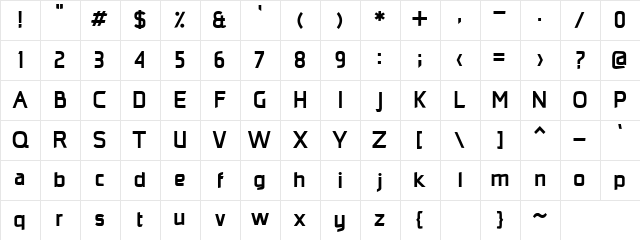
Complete Monopoly Bold glyph index. Displaying only characters natively supported by Monopoly Bold font.
Monopoly uses fixed-width spacing throughout, giving it the structured, systematic character associated with coding environments and technical documentation. Its bold stroke weight gives it real presence on the page.